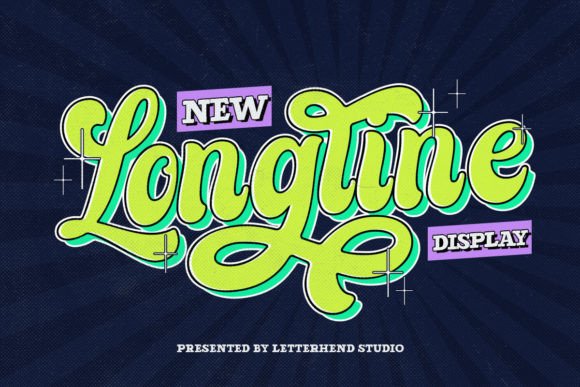
Introducing Longline Font - A Typographic Masterpiece That Will Make Your Designs Sing!
Prepare to be mesmerized by Longline Font, a breathtaking script font crafted with meticulous precision by the renowned letterhend. This extraordinary creation is not just a font; it's an artistic odyssey that will transform your designs into captivating masterpieces.
With its bold, captivating strokes and graceful curves, Longline Font exudes an aura of sophistication and elegance. Each letter dances across the page with a life of its own, inviting your audience on a visual journey that they won't soon forget.
Whether you're a seasoned graphic designer or a passionate crafter, Longline Font is your ultimate companion. Its versatility knows no bounds, lending itself effortlessly to a myriad of creative endeavors. Design eye-catching logos that command attention, create stunning digital art that captivates the senses, craft personalized greeting cards that warm hearts, or elevate your presentations to new heights of professionalism.
The possibilities are endless with Longline Font. Let your imagination soar and watch as your designs take on a life of their own. Embrace the beauty of bold letters and unlock a world of typographic wonders.